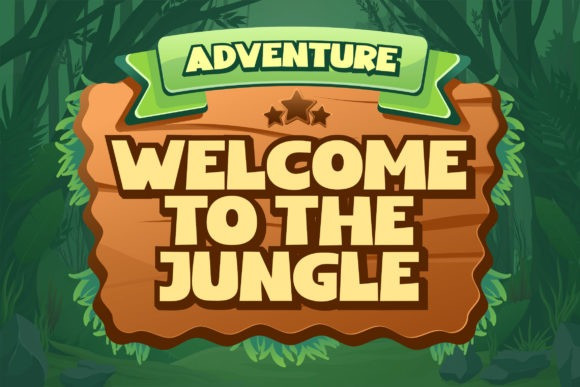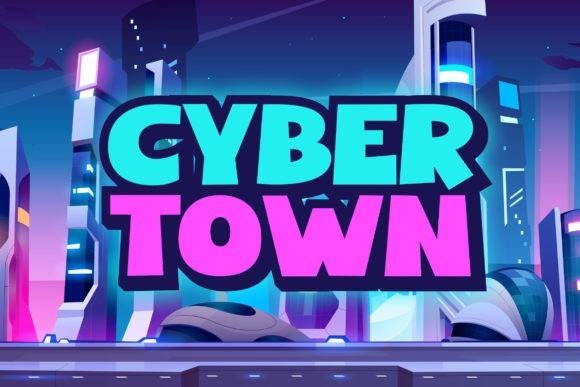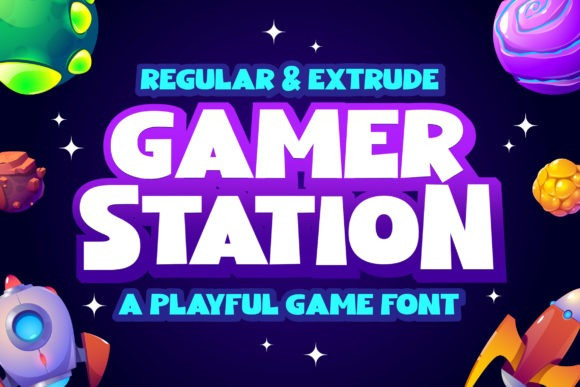
Gamer Station Font
Gamer Station Display Font is a cool and thick lettered display font. This original look will appeal to a wide range of crafty ideas, from letterheads and titles, to stationery.